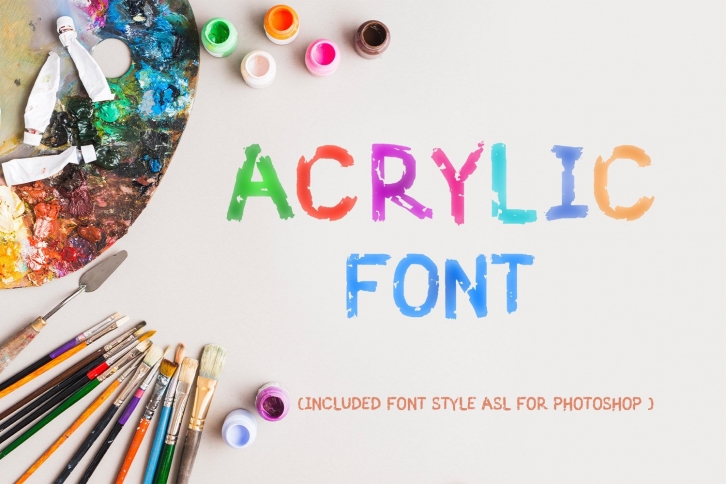
Acrylic is a modern, rough yet friendly display font. It is perfect for headings, blogs, logos, branding, business cards, websites, invitations, shirts, mugs, and much more!